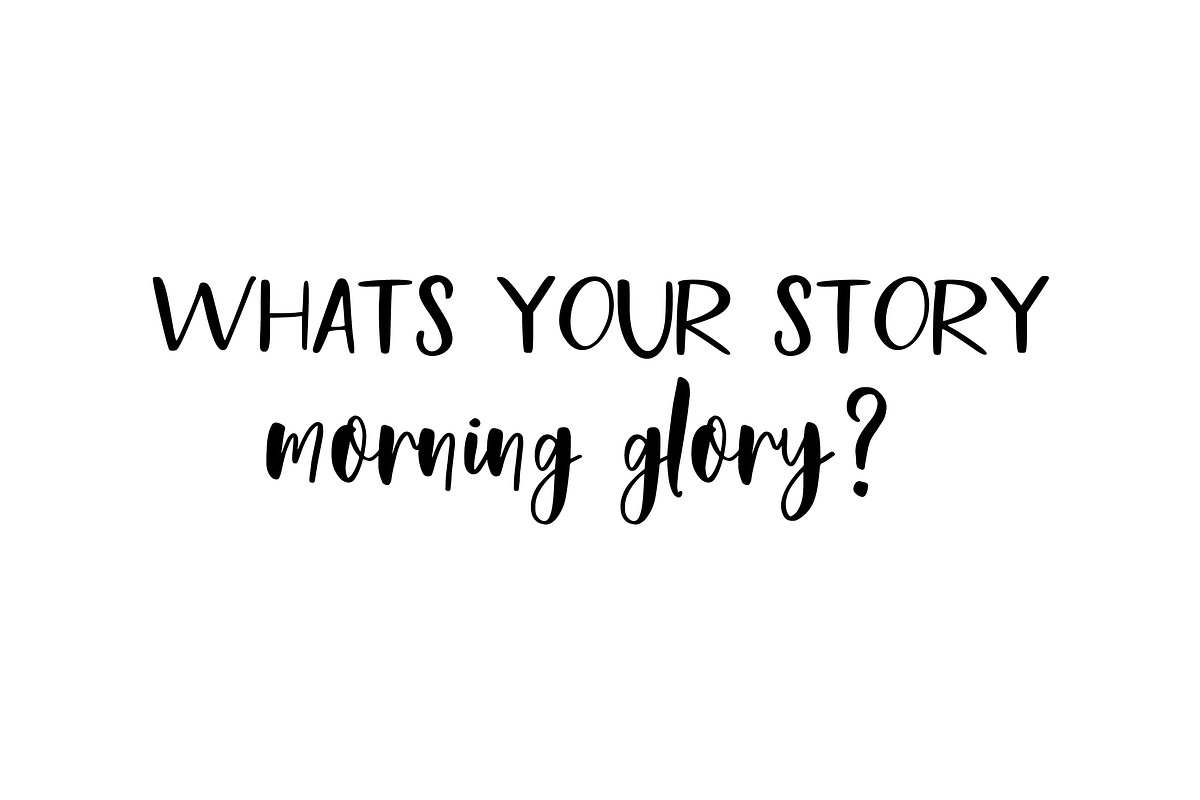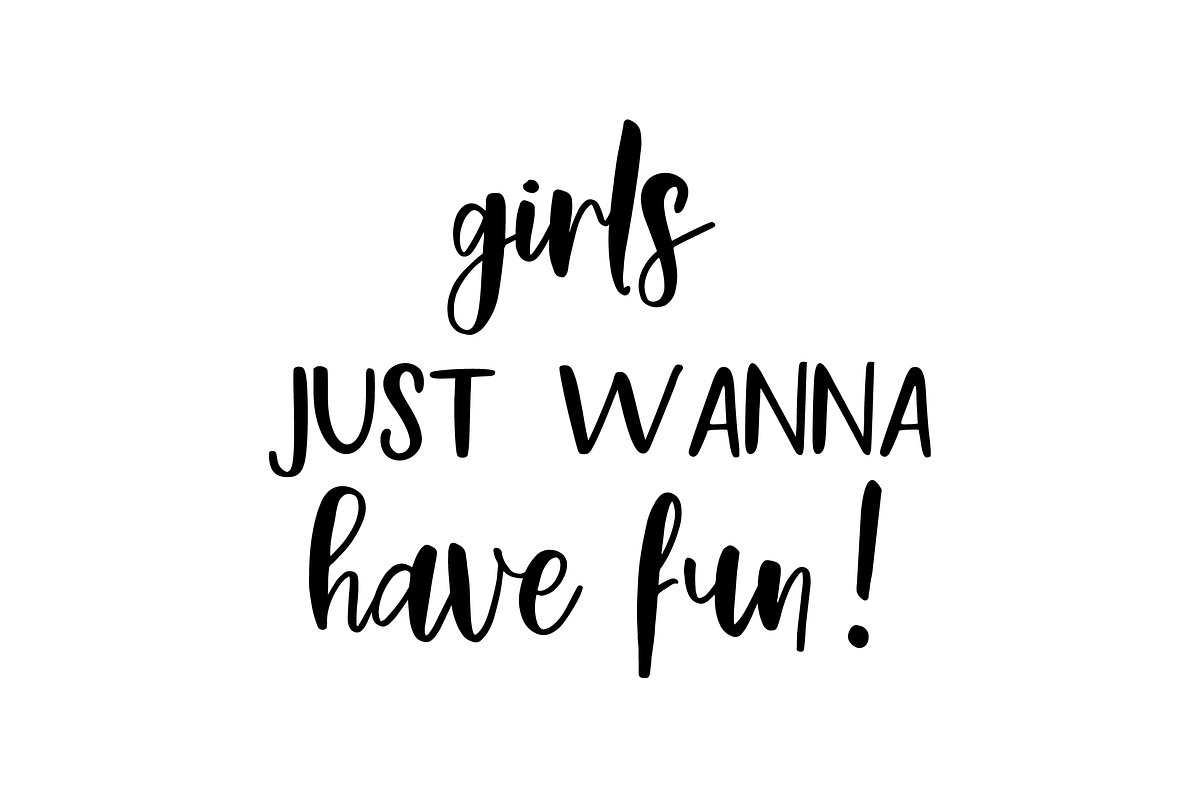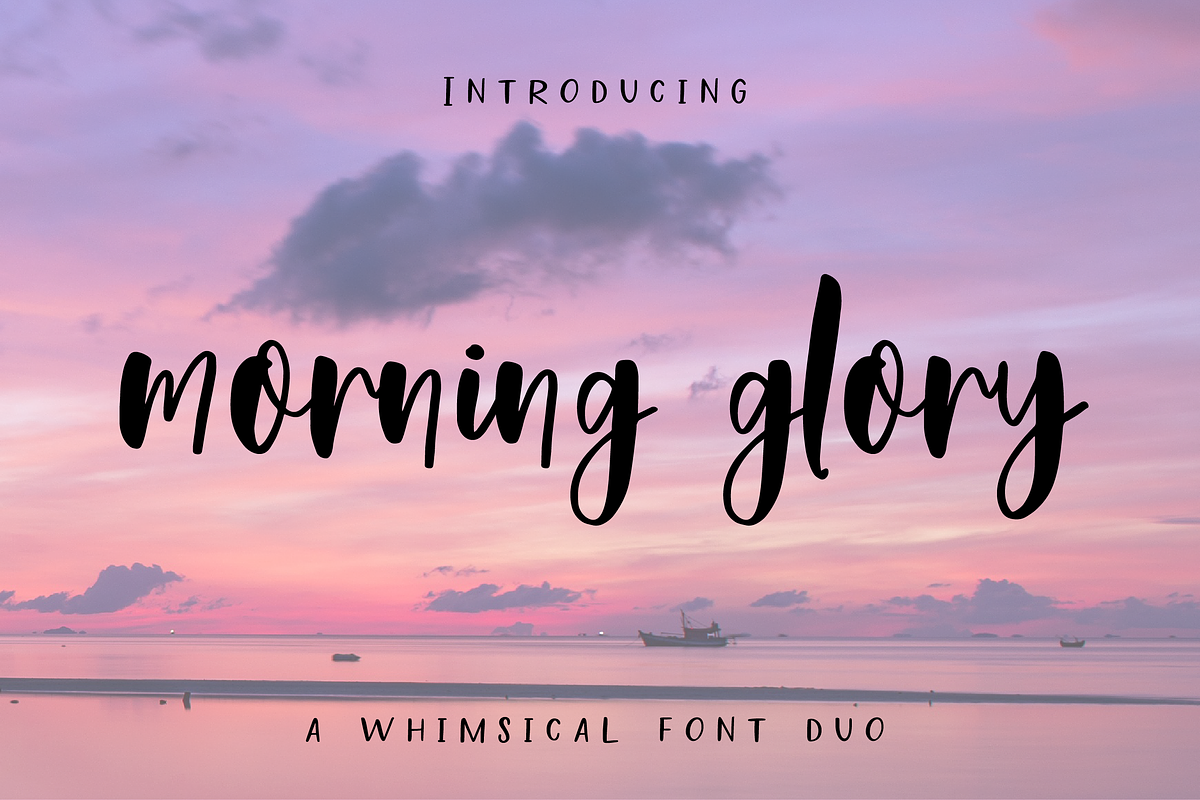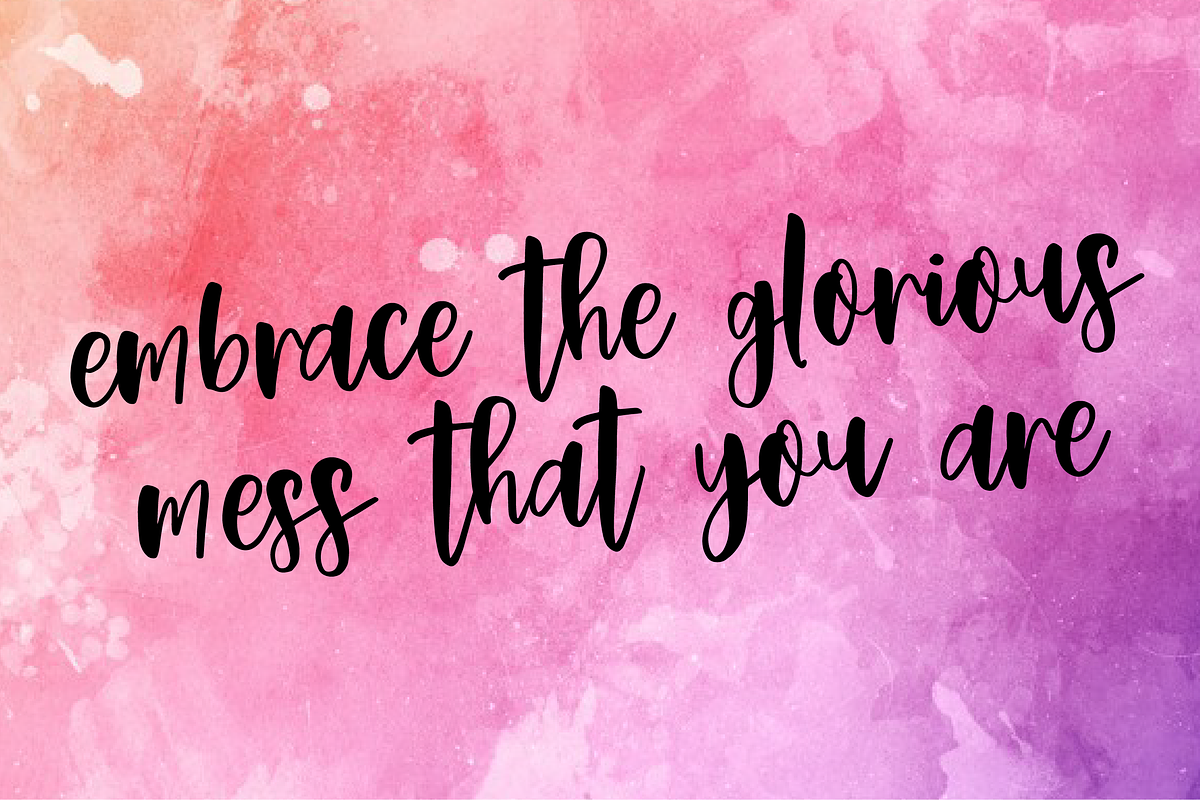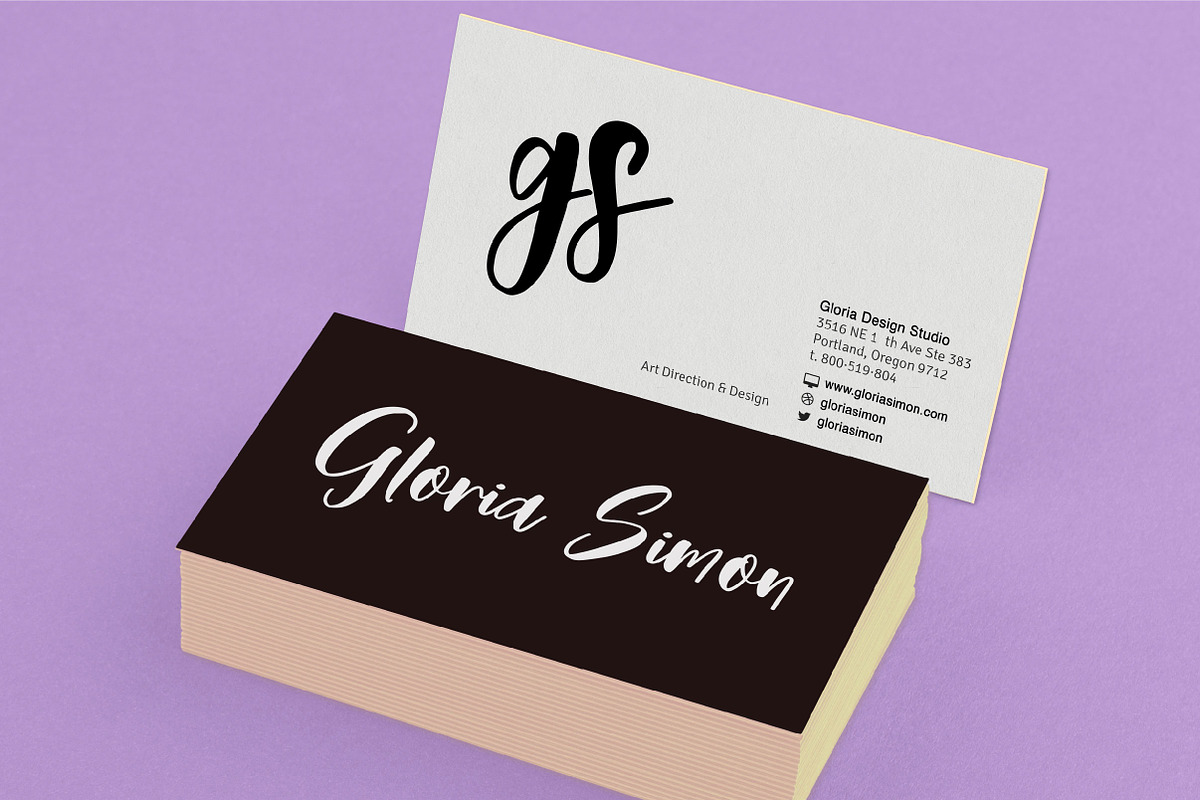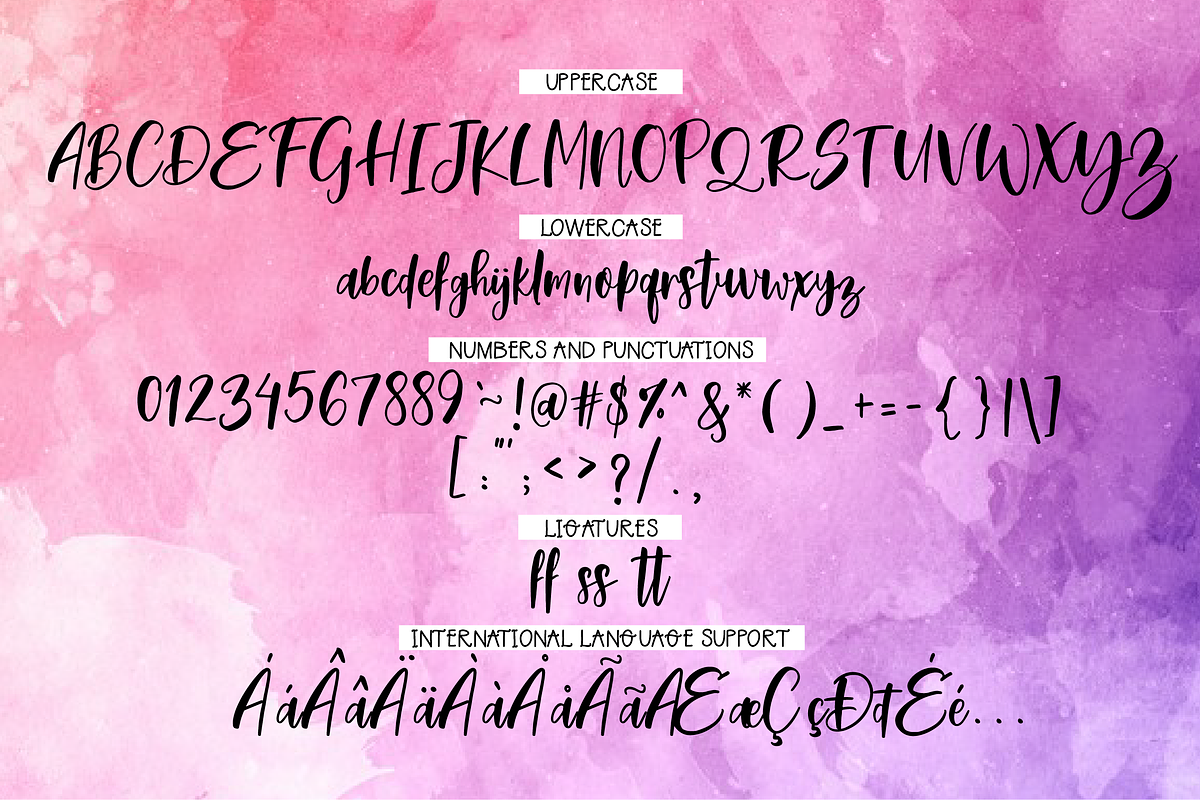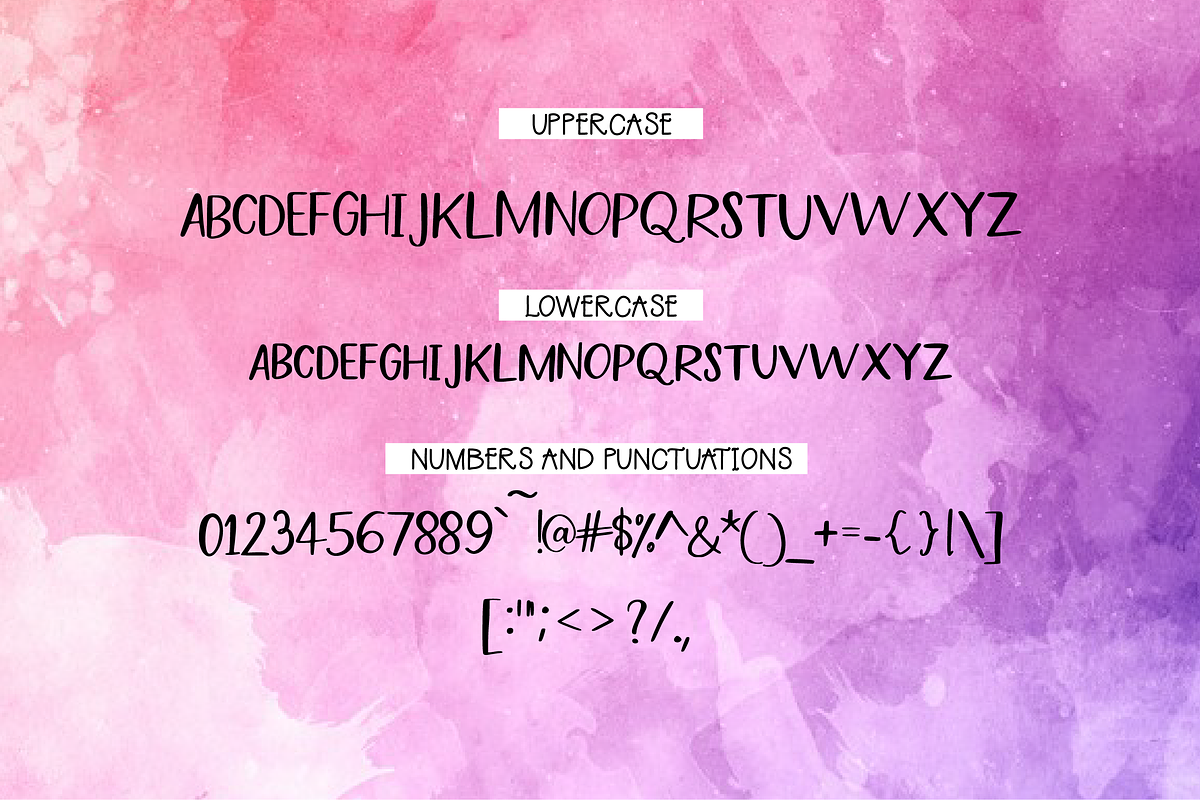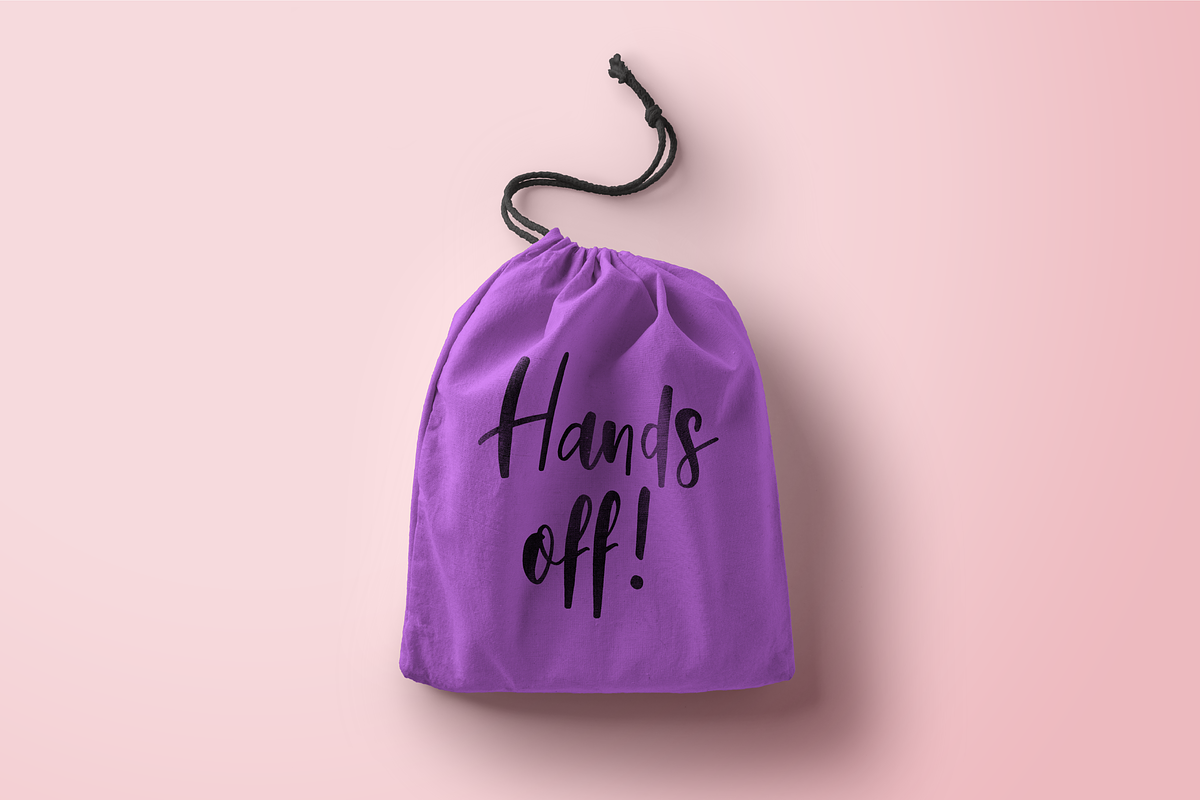
Morning Glory Font Duo
Meet Morning Glory Font Duo, a fun, modern and fresh script font packed together with a super cute sans serif typeface. They go together like peanut butter and jelly!
Modern glory is perfect for all your design needs. From photo overlays, branding projects to packaging as well as all kinds of printing needs, this font duo is perfect for adding that fun factor.
- Morning Glory Regular